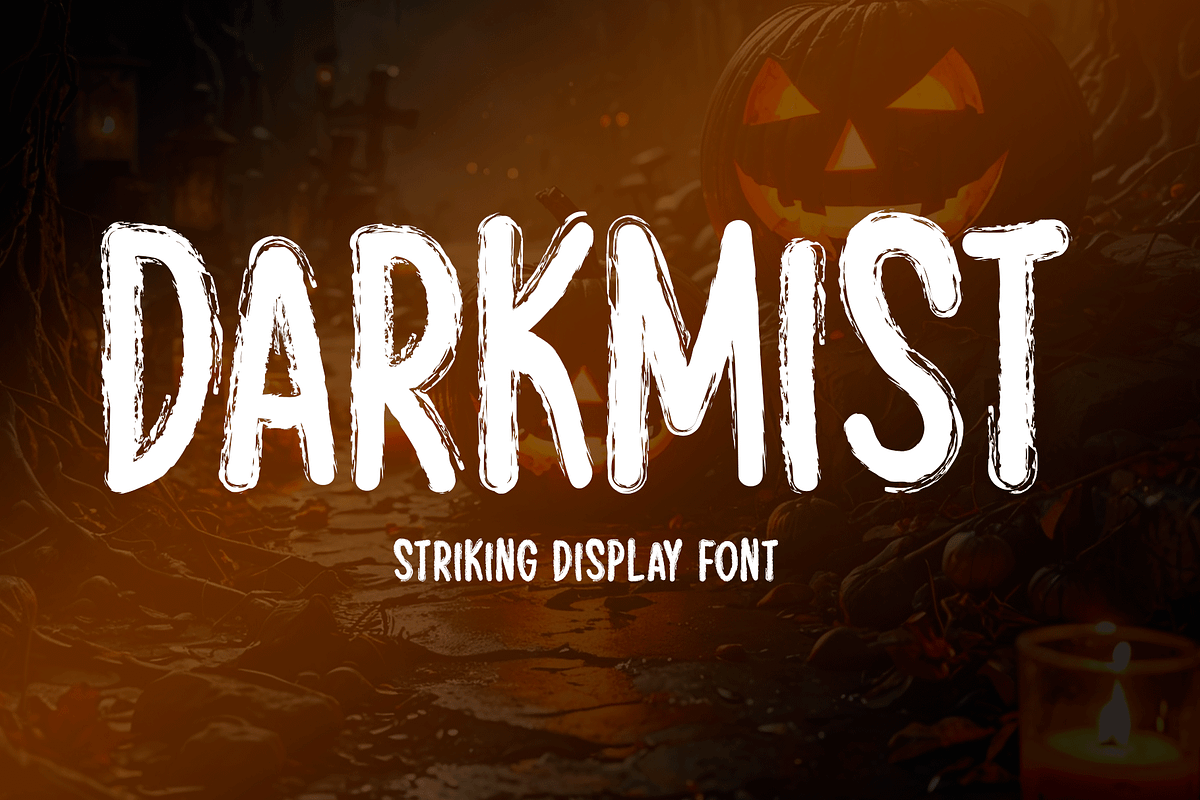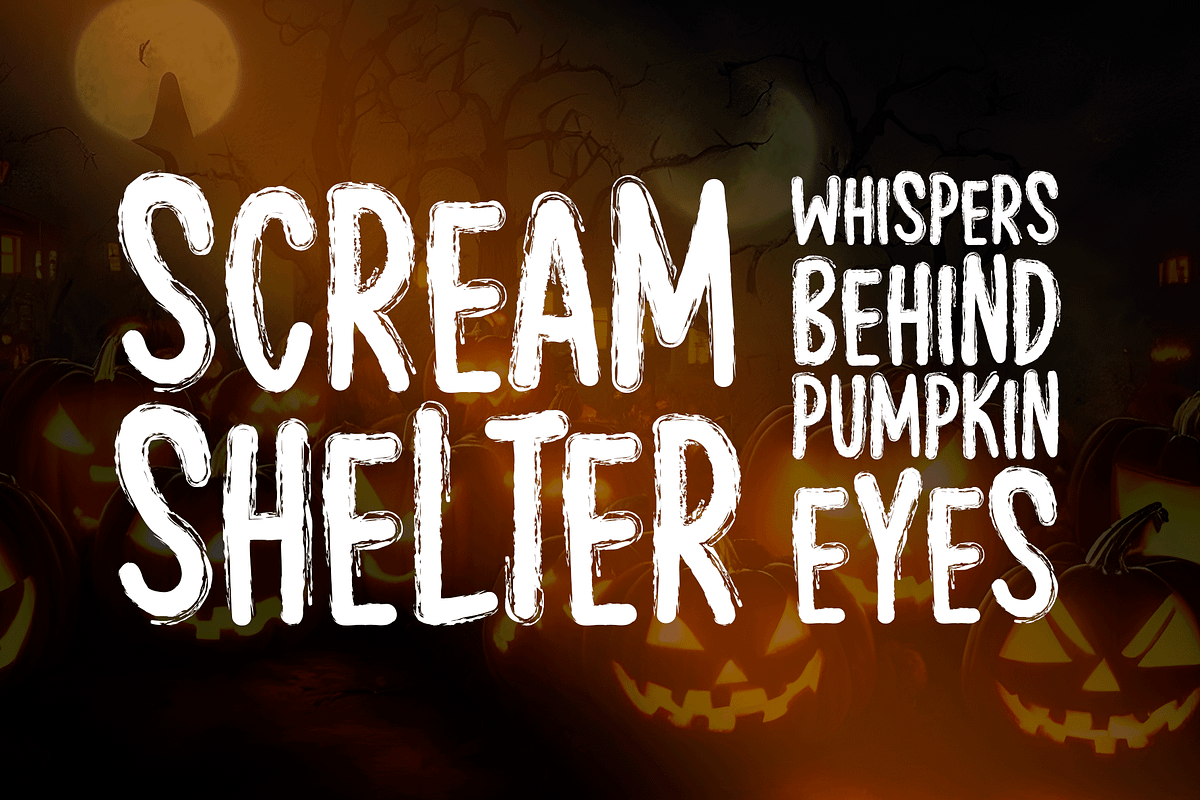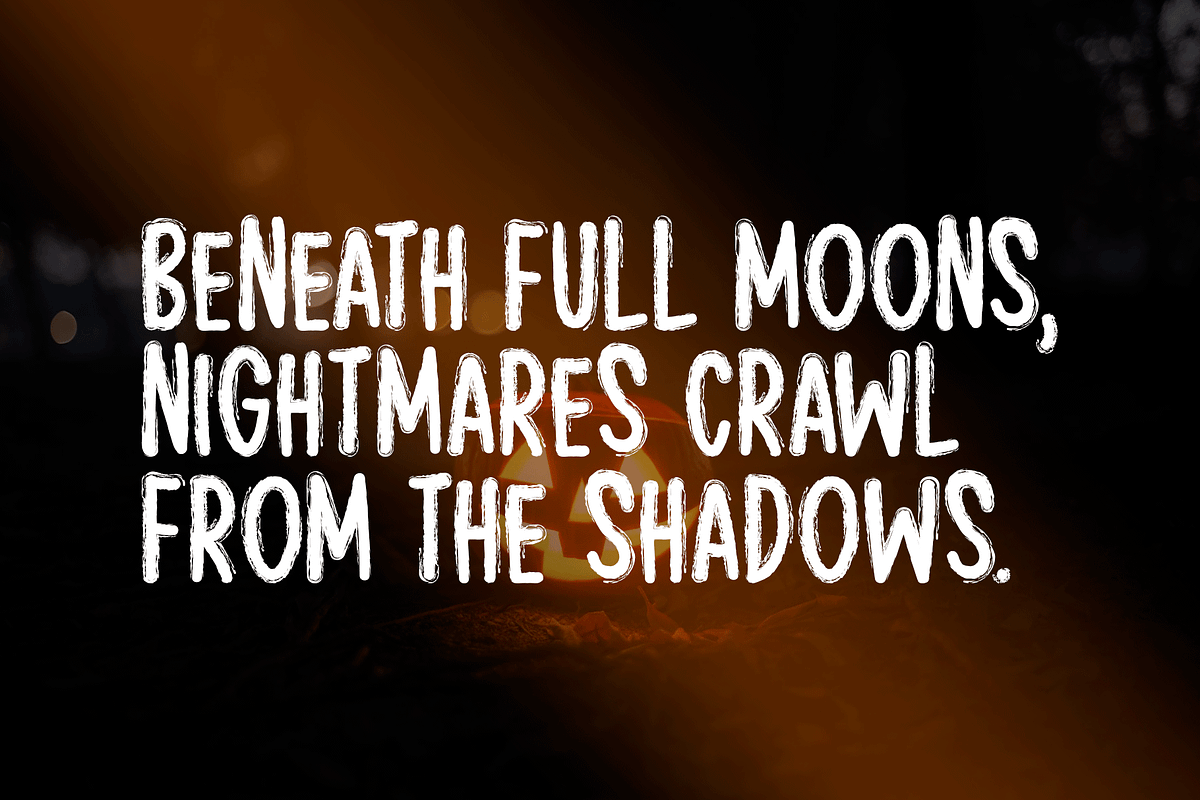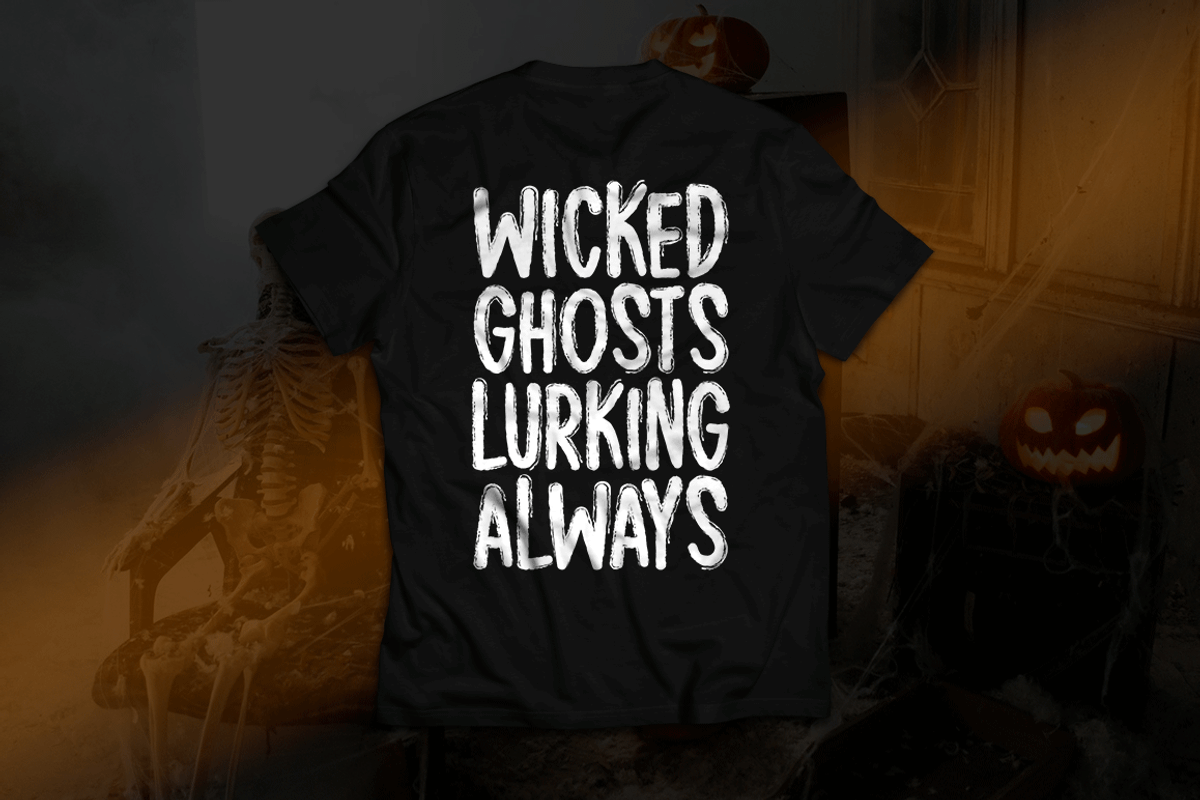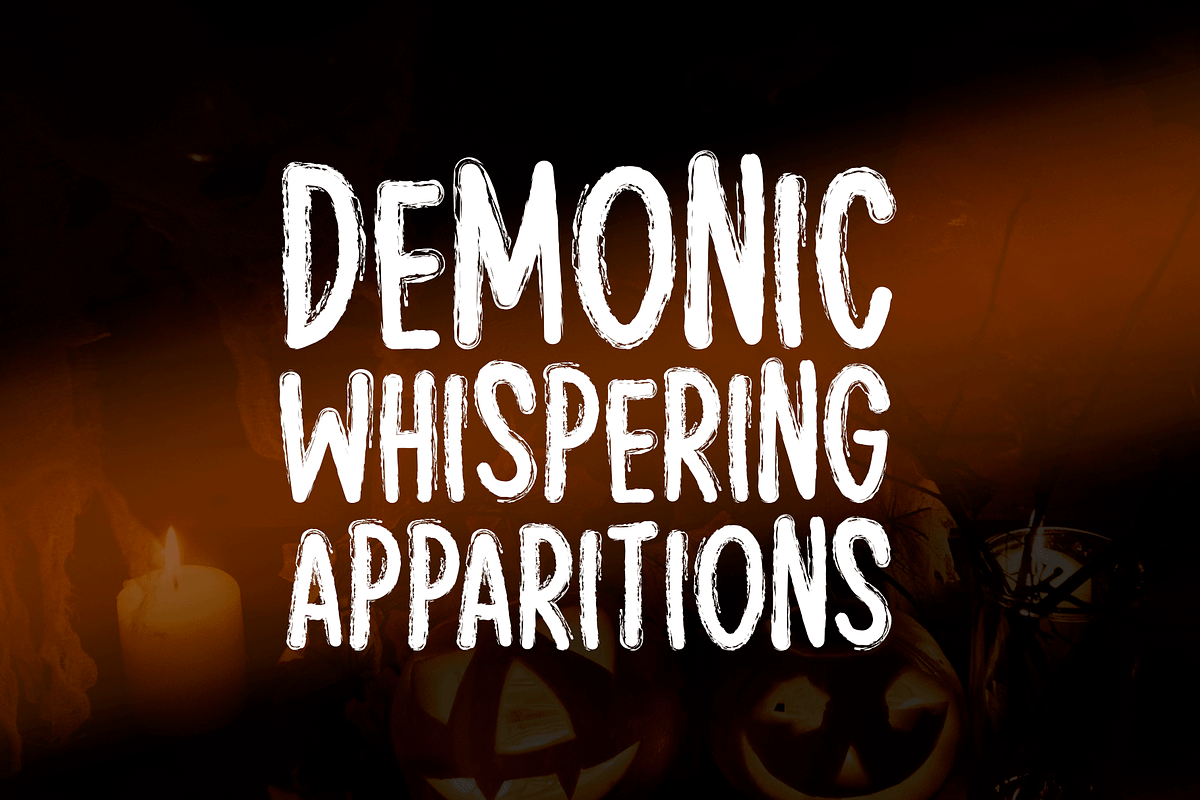
Darkmist Typeface
Introducing Darkmist!
Darkmist is a display font designed to capture attention with its unique and edgy style. It works seamlessly across various creative projects including stationery, logos, t-shirts, print materials, website headers, flyers, posters, music covers, and more. Its dramatic presence makes it a great choice for designs that need a touch of mystery and impact.